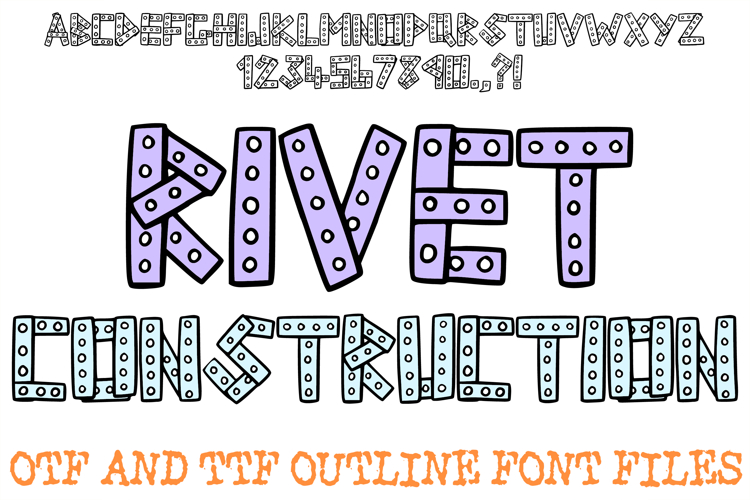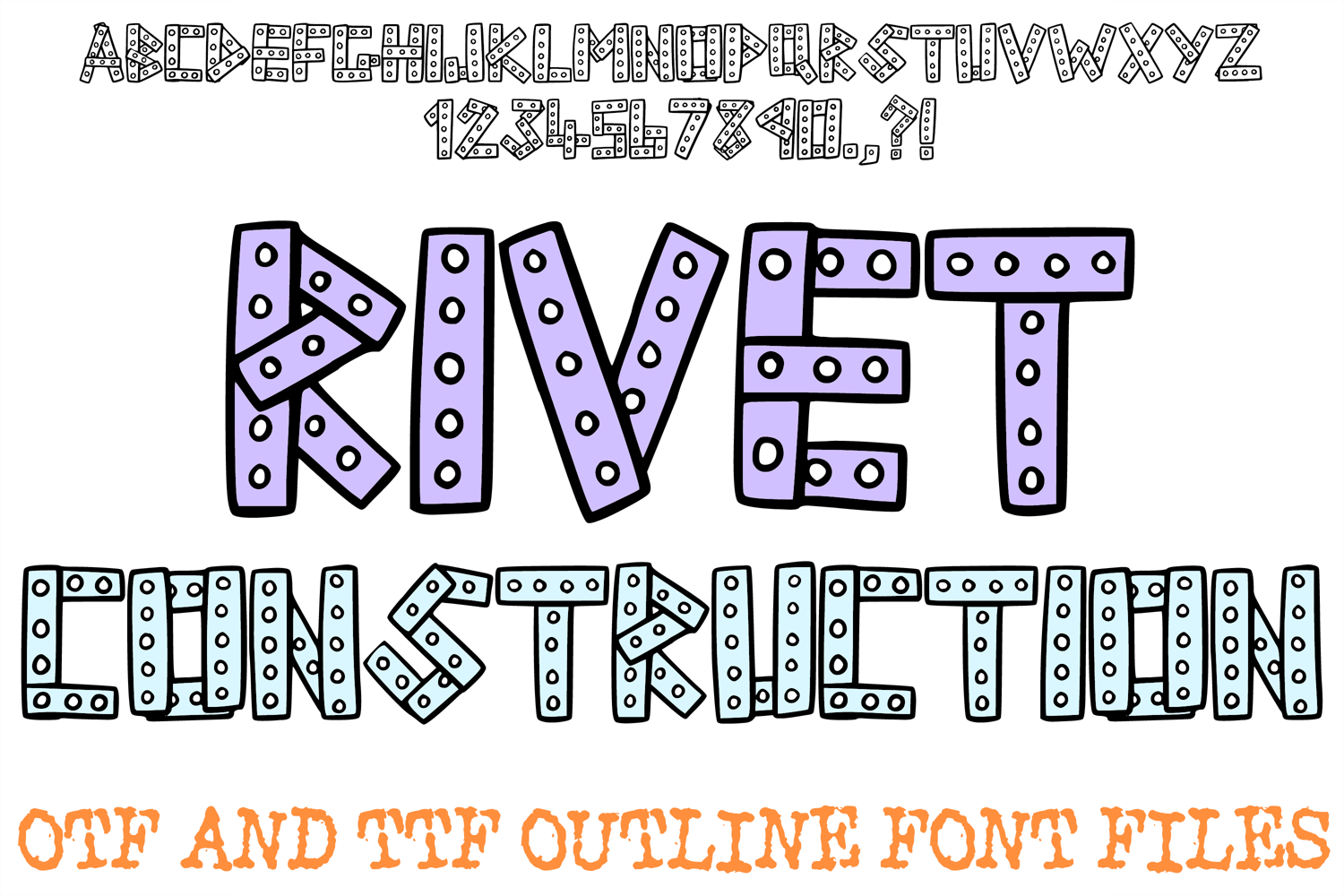
The Rivet Construction Font is a highly detailed, industrial display typeface inspired by mechanical workshops, vintage building sets, and structural engineering. Built out of heavy, intersecting plates and structural bars, each character features precise rows of circular rivet points and connector holes. This hands-on, maker-themed design makes it an exceptional choice for designers developing STEM workshop materials, toy store branding, children's book layouts, and building-themed birthday party invitations.
The design beautifully captures a nostalgic sense of childhood architecture, transforming blueprint-style assembly strips into a powerful, working alphabet. The thick, boxy perimeters give each letter massive layout presence, while the intricate interior peg holes offer unique tactile depth. Whether you are creating high-impact posters for a school science fair, developing custom stickers for young makers, or crafting a bold logo for a construction brand, this typeface delivers an authentic, mechanical charm that instantly anchors your layout.
Why Your Designs Will Stand Out
Authentic Structural Details: Built-in rivet lines and systematic peg-board holes mimic actual metal and plastic construction plates for an incredibly realistic workshop aesthetic.
Heavy Mechanical Weight: Bold, blocky letterforms ensure your headings and titles grab instant attention, offering clean visibility across print and digital mediums.
Playful STEM & Engineering Vibe: Perfectly tailored for themes surrounding building sets, architectural play, logic puzzles, and youth science programs.
Sharp, High-Contrast Outlines: Well-defined outer curves and distinct interior spaces maintain a high level of legibility despite the highly detailed internal textures.